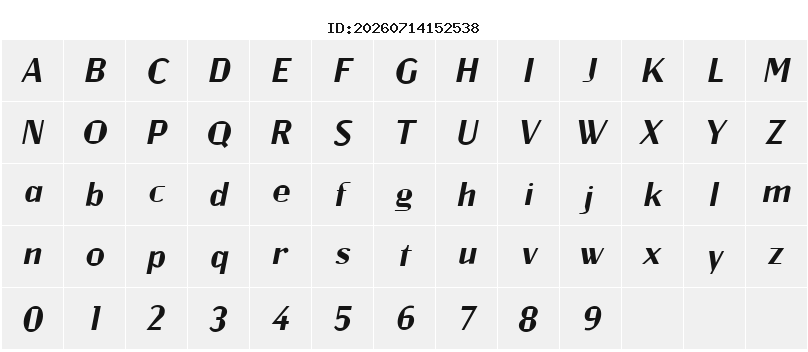
Jagz Preview
• Font Name: Jagz
• Full Font Name: Jagz Italic
• Designer: Karen Clemens & Apostrophe
About Jagz.ttf
Jagz.ttf is a modern, elegant sans-serif font designed for ultimate readability and visual harmony. Perfect for branding, headlines, web design, and print materials.